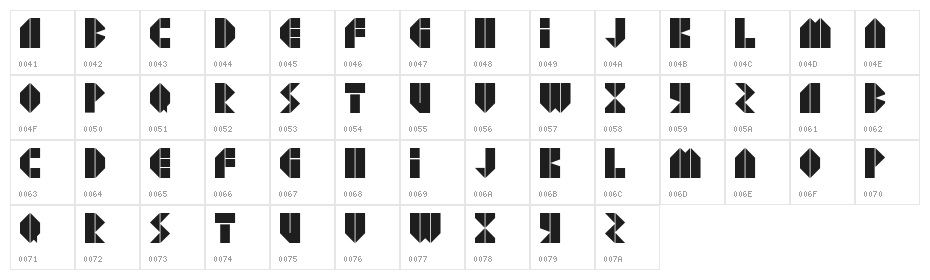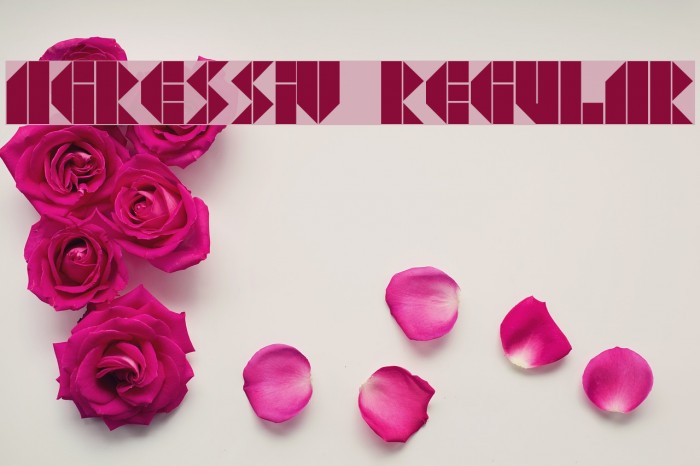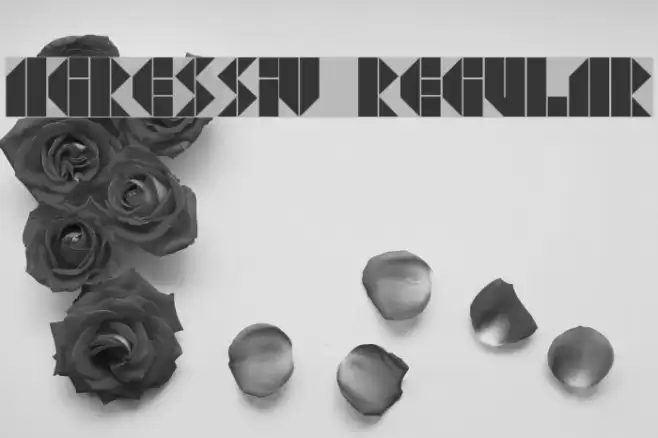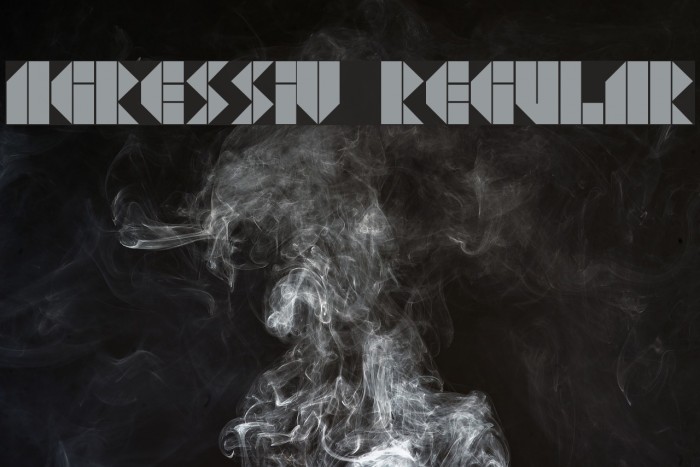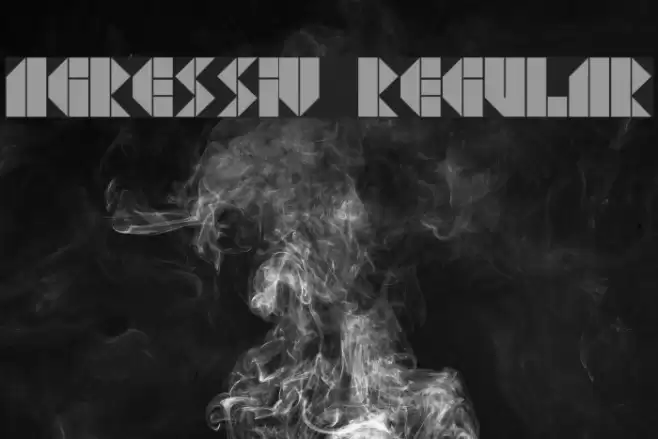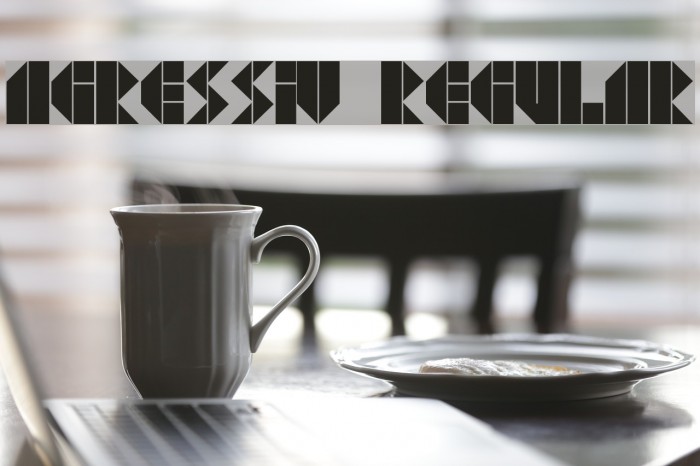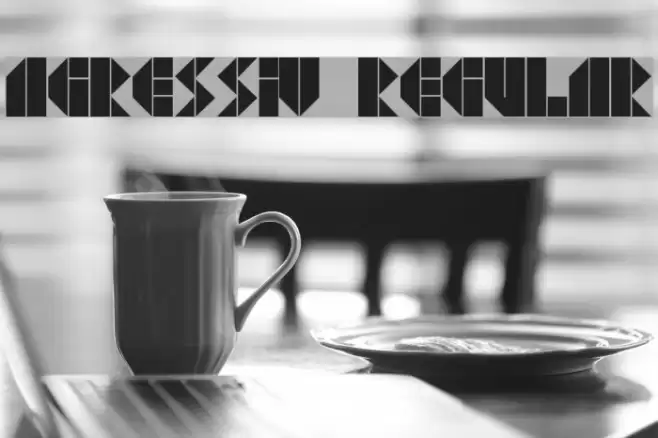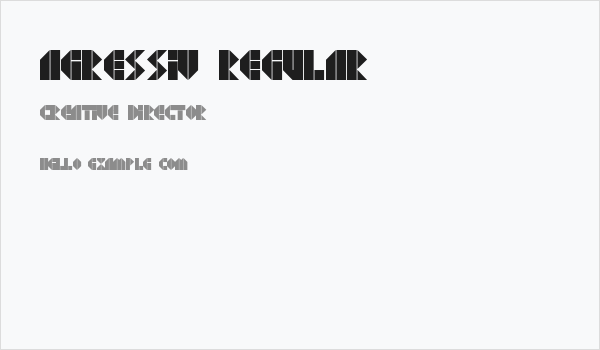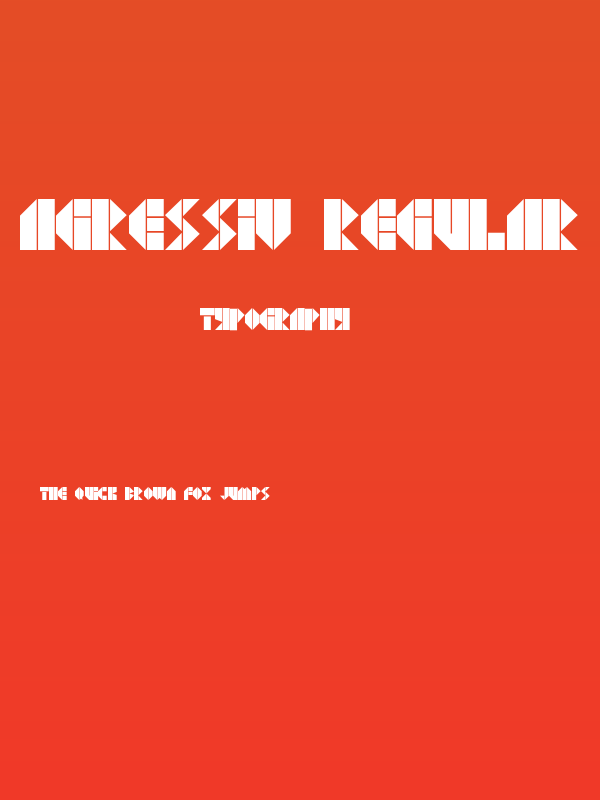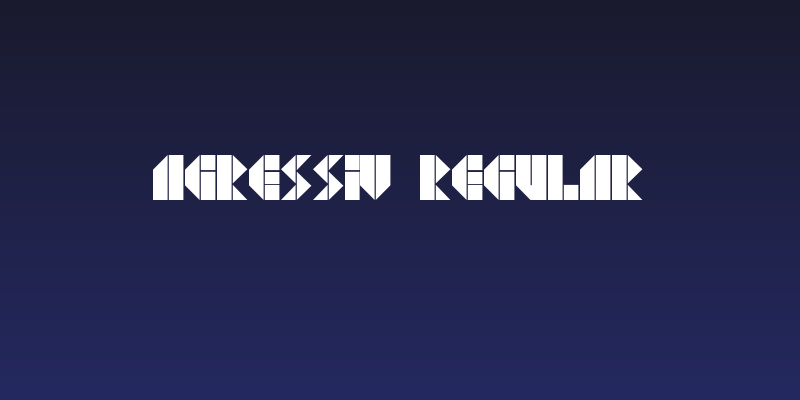
Agressiv Regular Font
Agressiv Regular Description
This font features a bold, geometric design with sharp angles and a blocky appearance. Each character is constructed from a series of straight lines and angular cuts, creating a highly stylized and aggressive look. The uppercase and lowercase letters maintain a consistent height, giving the font a uniform appearance. The numbers and special characters follow the same design principles, ensuring a cohesive look across all glyphs. The font's unique style makes it stand out, with a modern and edgy feel that is both eye-catching and memorable.
| Proposed Projects | Ideal for use in branding, posters, album covers, and any project requiring a strong, modern aesthetic. |